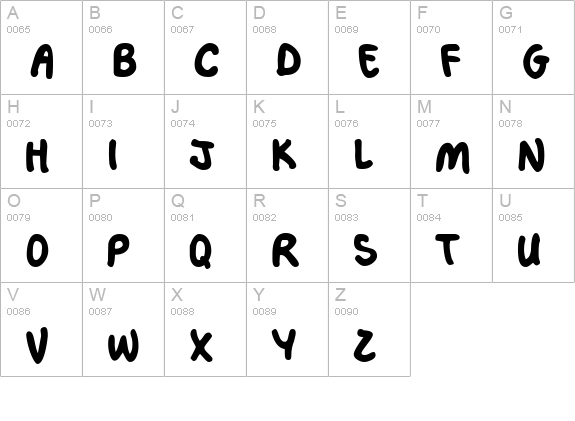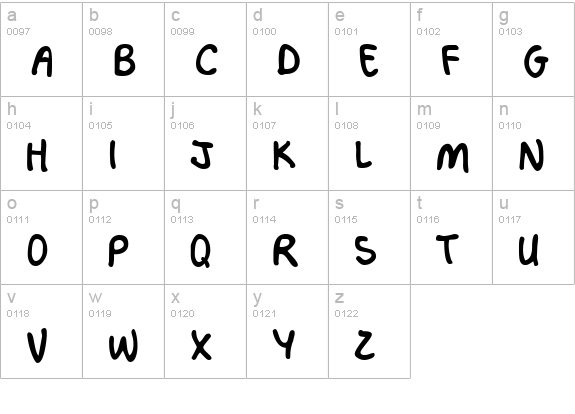
Katherine Font Details
Introducing Katherine font, a stunning typeface that effortlessly combines elegance and modernity. With its graceful curves and refined letterforms, Katherine is the epitome of sophistication. Designed with meticulous attention to detail, this font exudes a sense of timeless beauty that will elevate any design project. What sets Katherine font apart is not only its striking aesthetics but also its accessibility. It is absolutely free to download at FontsMarket.com, making it the perfect choice for designers on a budget or anyone seeking a high-quality font without the hefty price tag. Whether you're working on a personal project, a professional presentation, or even a commercial endeavor, Katherine font will enhance your work with its unparalleled charm. This versatile typeface is suitable for a wide range of design applications. Its legibility and readability make it ideal for body text in print materials such as magazines, books, and brochures. Its elegance and sophistication also make it perfect for creating impactful headlines, logos, and branding materials. The possibilities are endless with Katherine font, allowing you to unleash your creativity and make a lasting impression. With its extensive character set, Katherine font supports multiple languages, making it a truly global typeface. Its smooth curves and balanced proportions ensure that each letter flows seamlessly into the next, creating a harmonious and visually pleasing text. Whether you're designing for a website, an app, or any other digital platform, Katherine font will bring your words to life with its effortless beauty. In conclusion, Katherine font is a must-have for any designer or creative individual looking to add a touch of elegance and sophistication to their projects. And the best part? It's freely available to download at FontsMarket.com. So why wait? Embark on a journey of creativity and inspiration with Katherine font, and let your designs shine like never before.